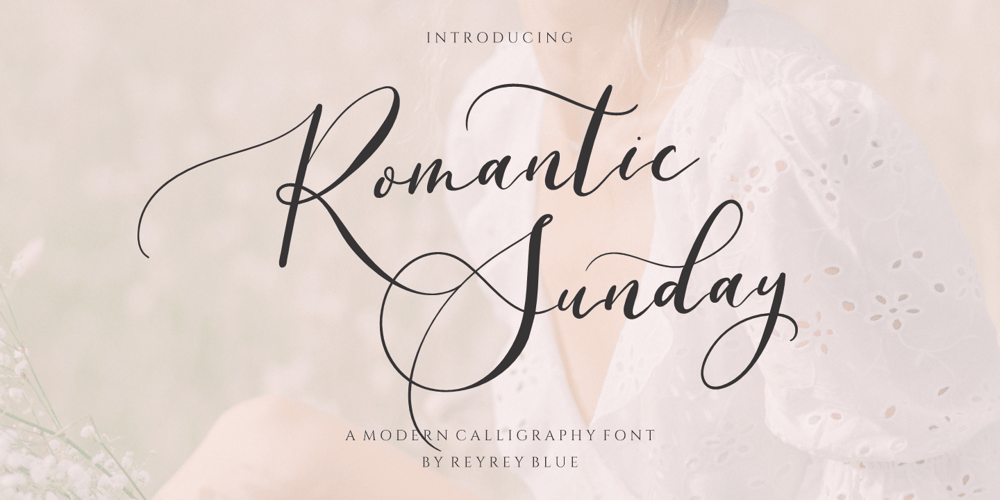
Romantic Sunday Font Family was designed by Risca Anitawati and published by Reyrey Blue Std. Romantic Sunday contains 1 styles and family package options. Say Hello to Romantic Sunday Calligraphy Font. A new and beautiful font, with contemporary, beautiful and elegance touch. Romantic Sunday would be perfectly appropriated for your various projects including but not limited to wedding invitations and wedding suites, stationery, packaging, feminine branding, logos, quotes, and prints.Features :· All Uppercase and Lowercase· Number & Symbol· Supported Languages· Alternates and Ligatures· PUA Encoded